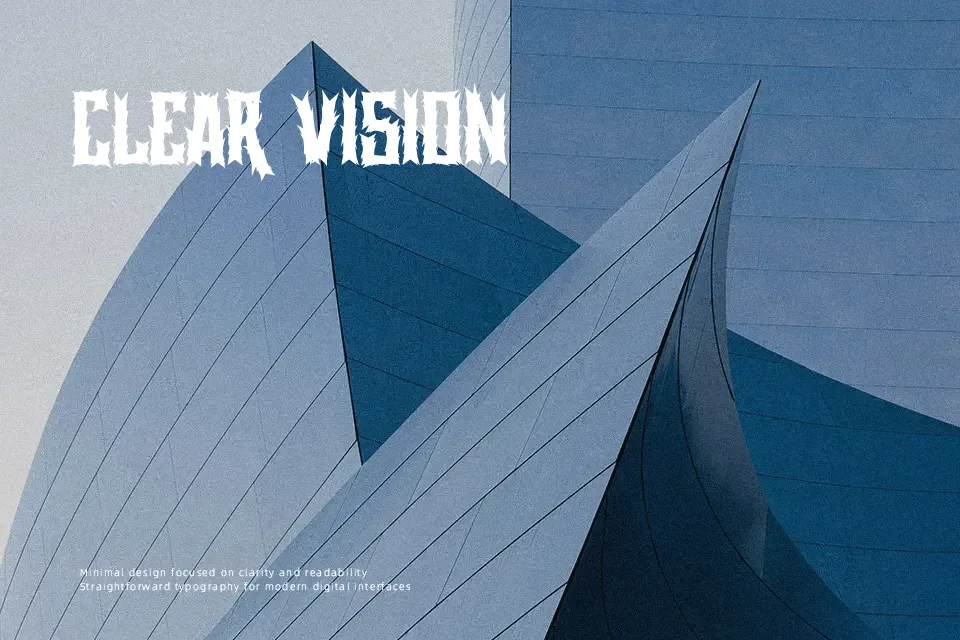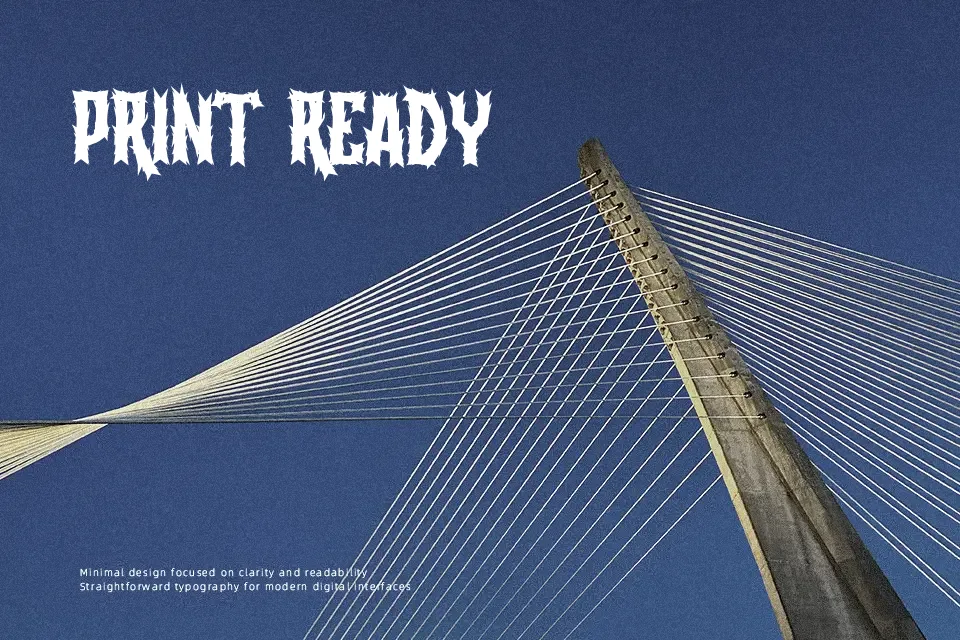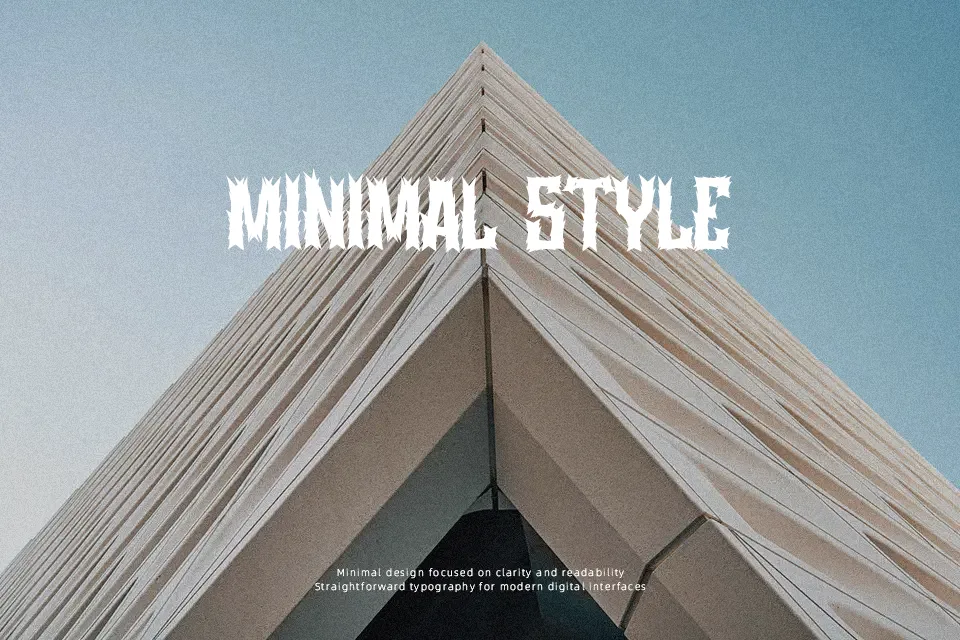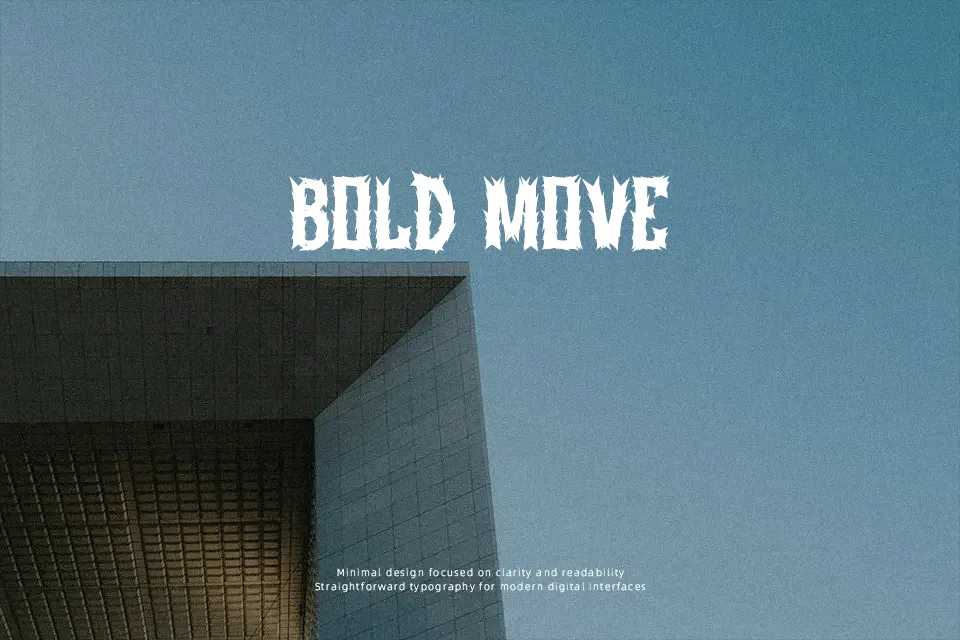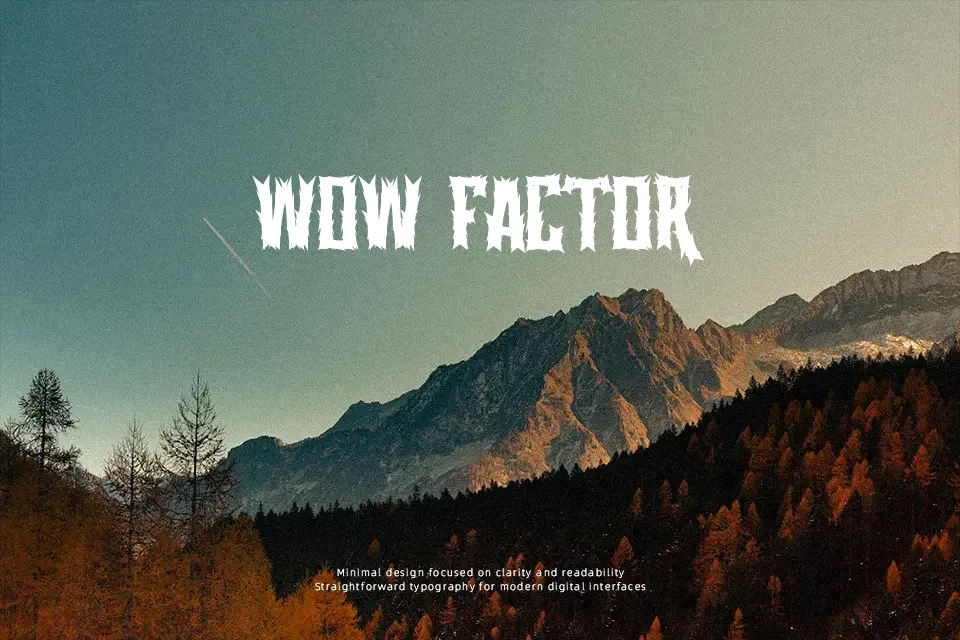
Chratos Font
Chratos Font delivers an intensely textured display style characterized by sharp, jagged strokes and irregular distressed edges. Built with tall, condensed vertical proportions, the letterforms exhibit tight spacing that creates a dense and chaotic visual rhythm. While the rugged brush details produce exceptional dramatic impact in large headline settings, the heavy distressing significantly reduces character recognition when rendered at smaller text sizes. The typeface excels in horror movie titles, dark gaming graphics, and extreme music packaging where raw intensity takes precedence. However, the complex textured silhouettes make the design entirely unsuitable for continuous body text or structured editorial reading.
Best For: horror movie title cards, heavy metal album covers, halloween event flyers, dark gaming branding
Not Ideal For: continuous body text, dense editorial layouts, small interface labels, corporate document headers
Perfect for film, halloween, and headline, with a dark and brush style.